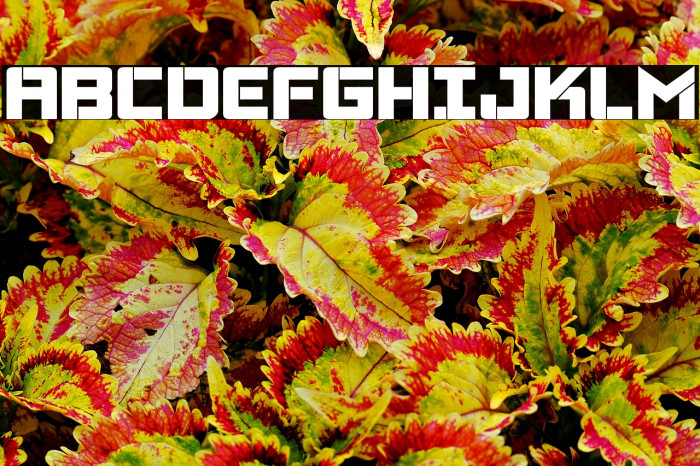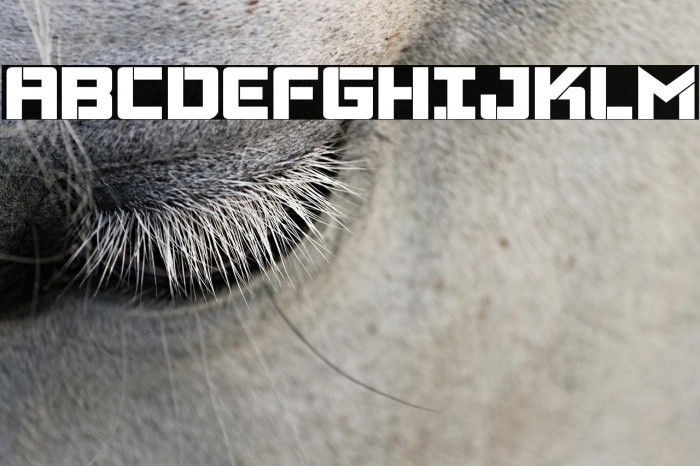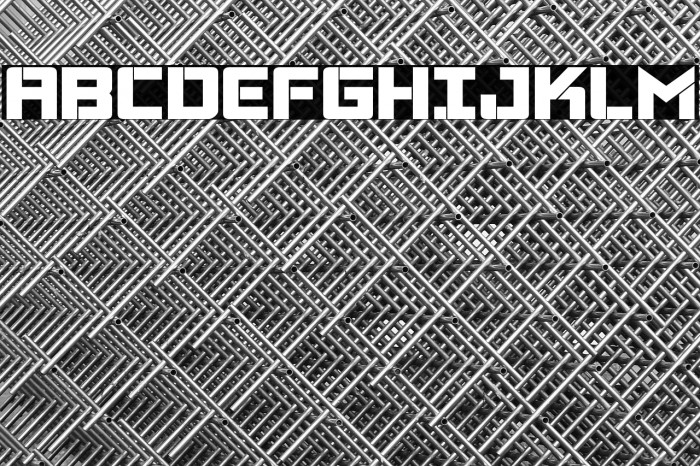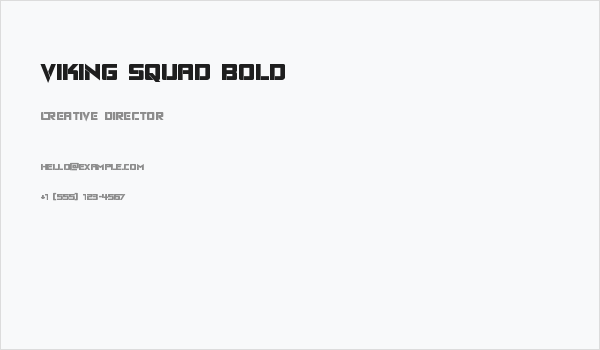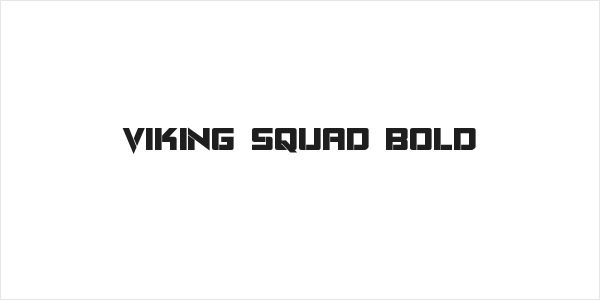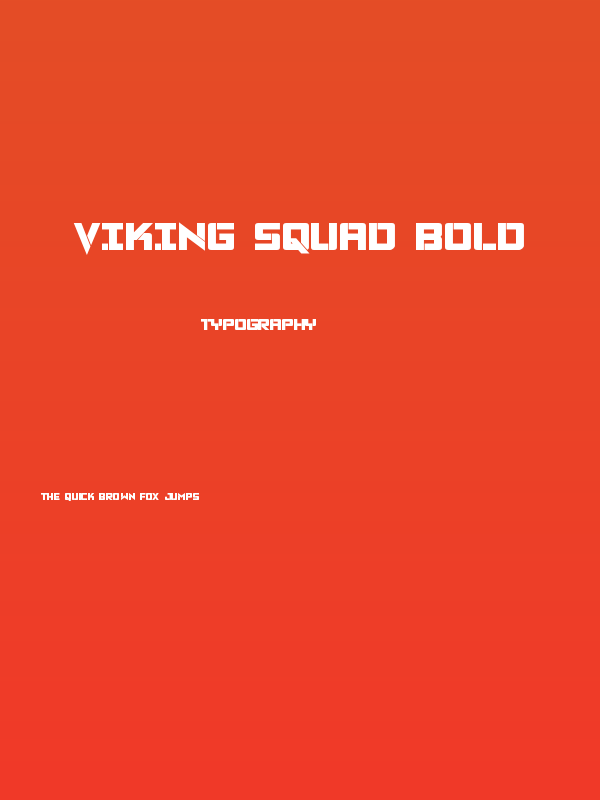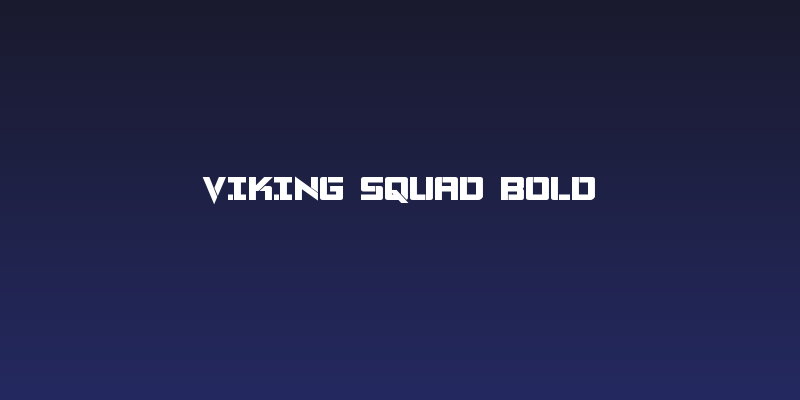
Viking Squad Bold Font
Viking Squad Bold Description
This font features a bold and geometric design with sharp, angular edges and a blocky appearance. The uppercase letters are uniform in height, creating a strong and cohesive look. The lowercase letters maintain the same boldness, ensuring consistency across all text. Numbers are equally bold and geometric, matching the style of the letters. Special characters are designed with the same angular and robust characteristics, making them stand out. The overall design is modern and impactful, suitable for projects that require a strong visual presence.
| Proposed Projects | Ideal for branding, posters, video game titles, and any project needing a strong, modern typeface. |